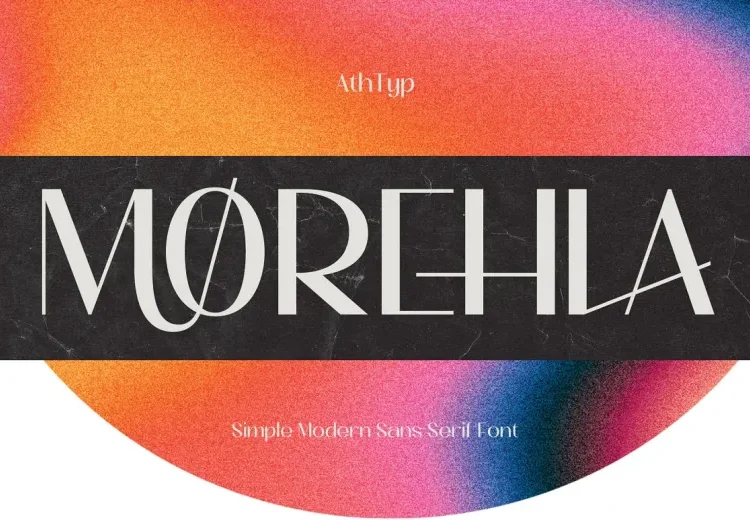
Morehla Font
Morehla is a refined sans serif font that blends modern sophistication with handcrafted charm. Each letter is carefully designed to exude timeless beauty, making it a versatile choice for a wide range of creative projects. Whether used for branding, editorial layouts, or wedding invitations, Morehla’s clean lines and subtle details add a touch of effortless elegance.
With its balanced proportions and graceful letterforms, Morehla offers both functionality and aesthetic appeal. Its adaptability ensures a polished and professional look across various applications, from digital designs to print materials.